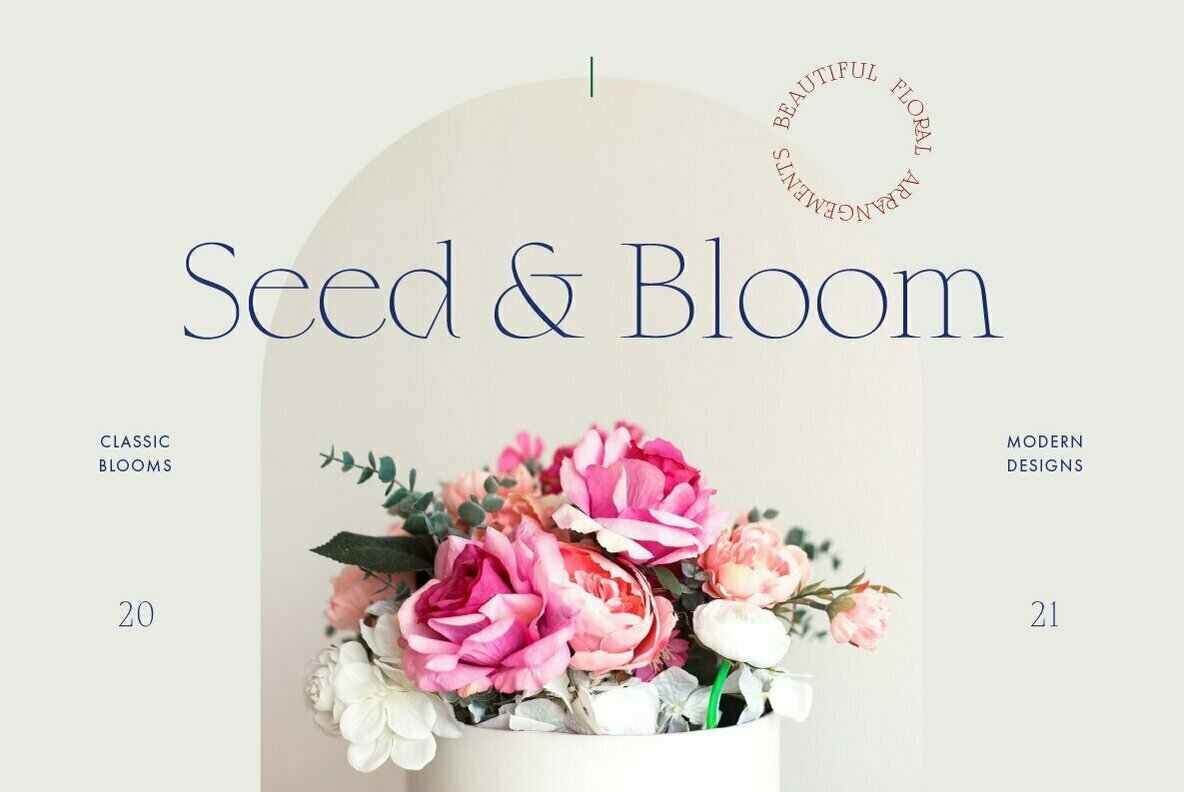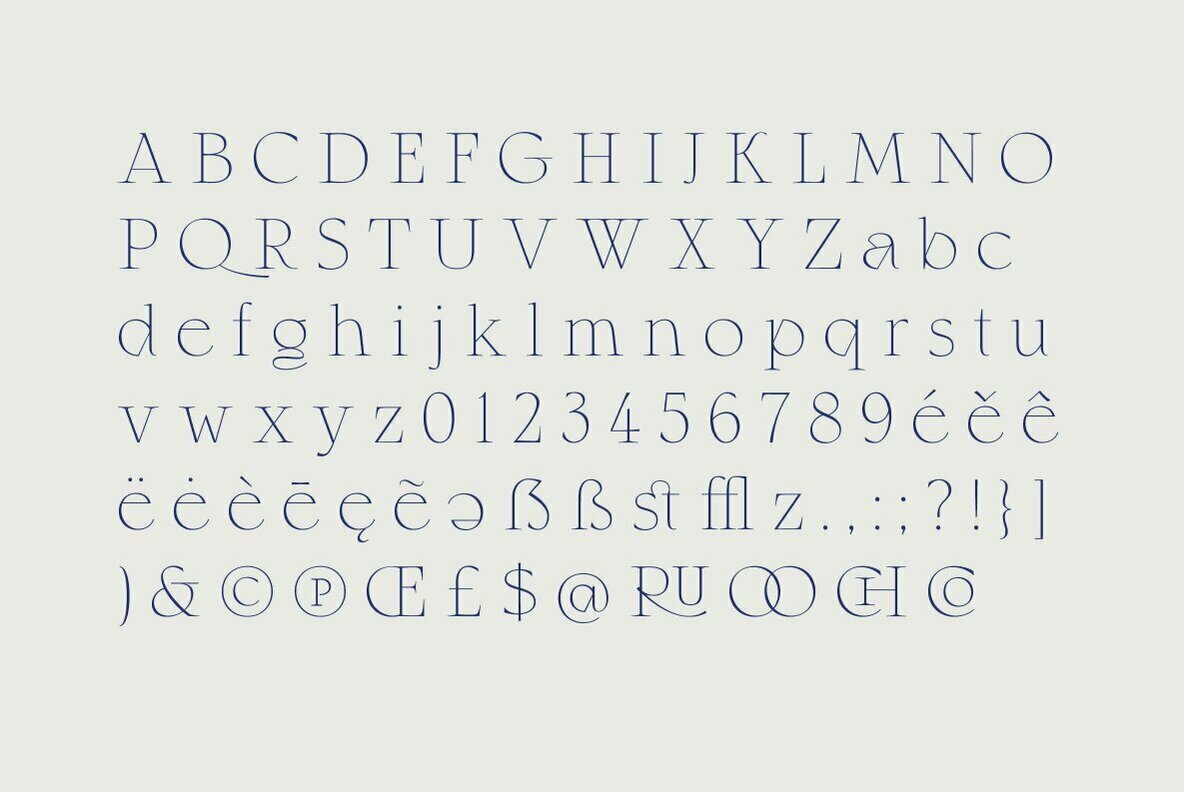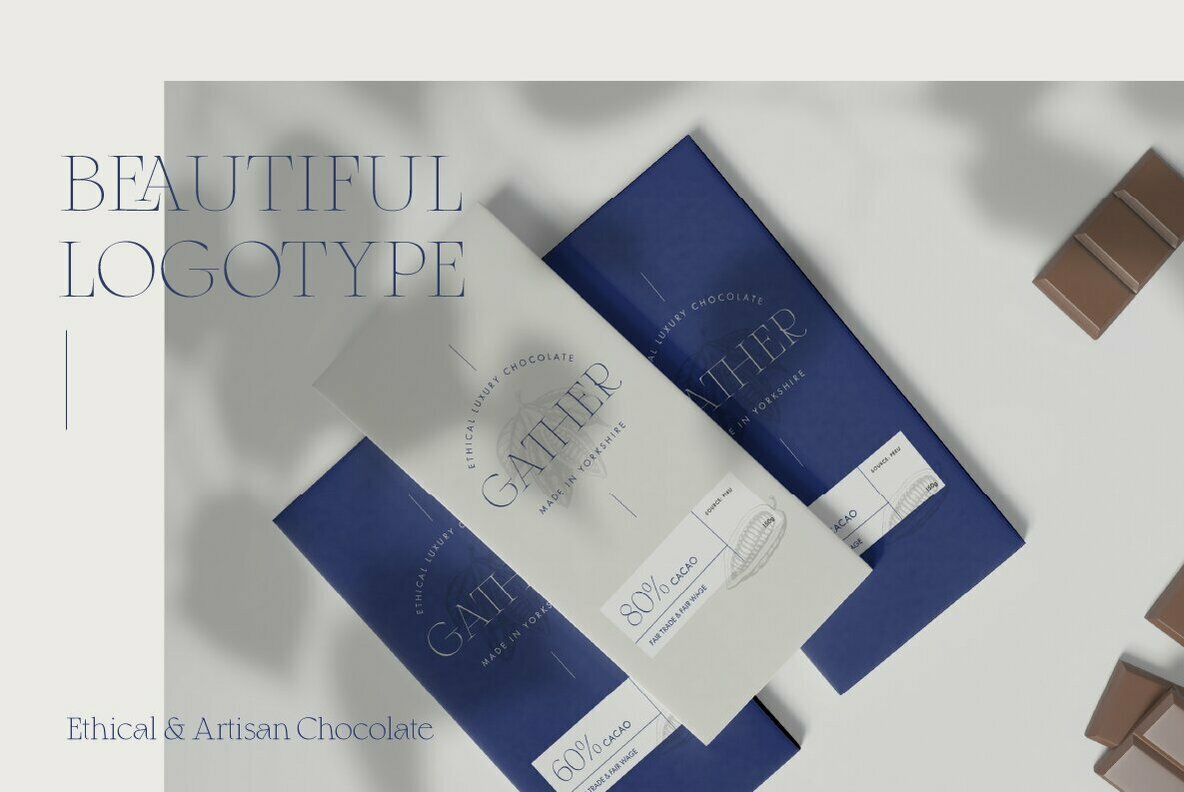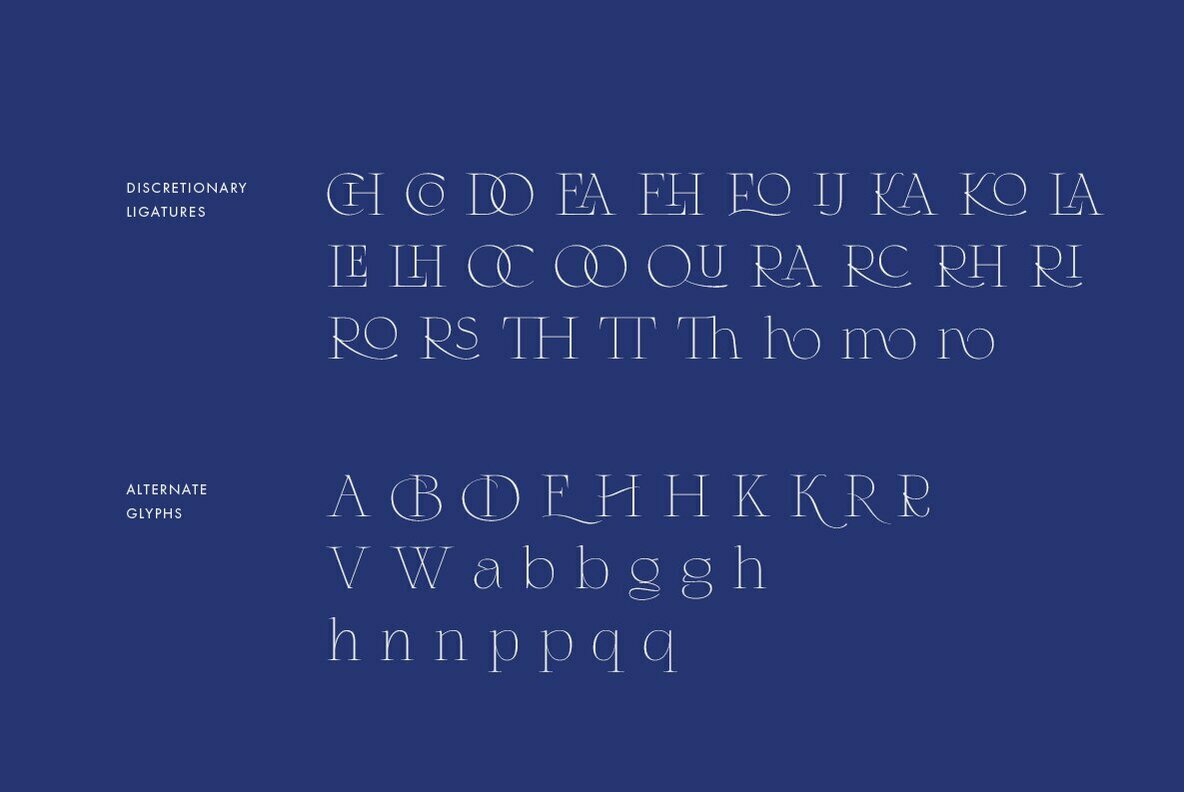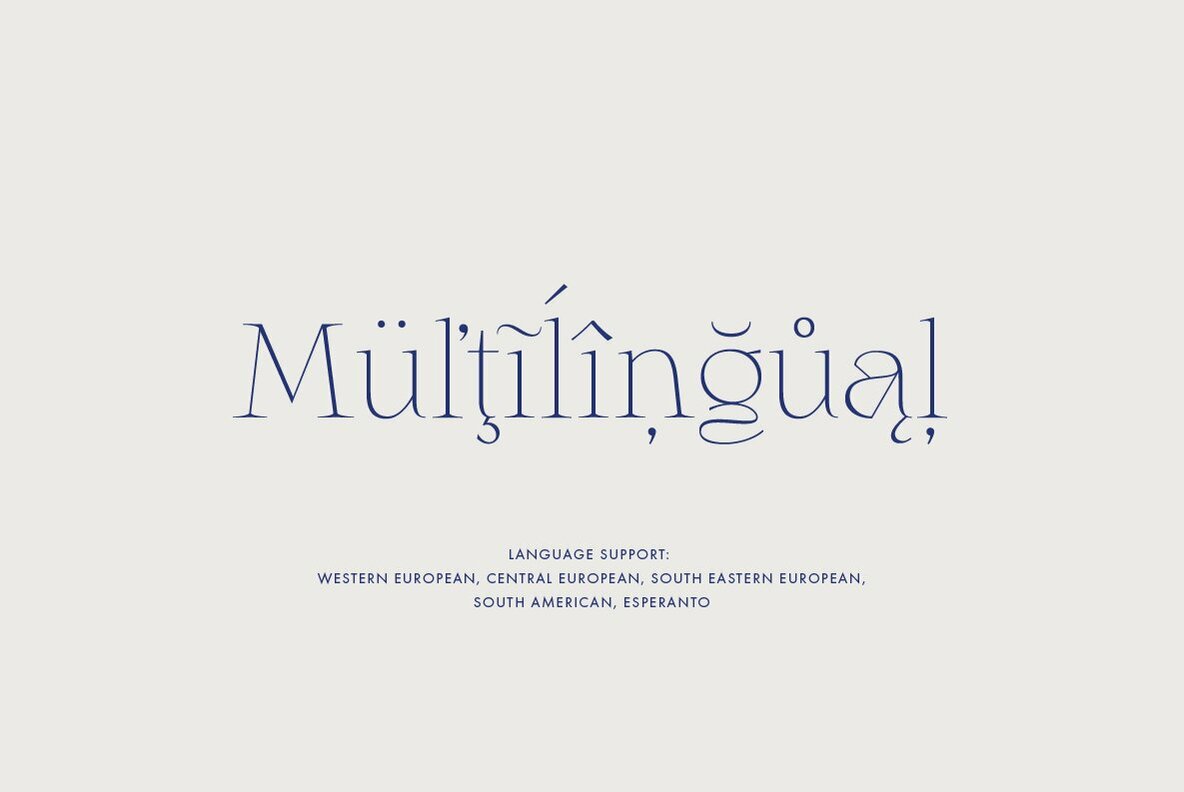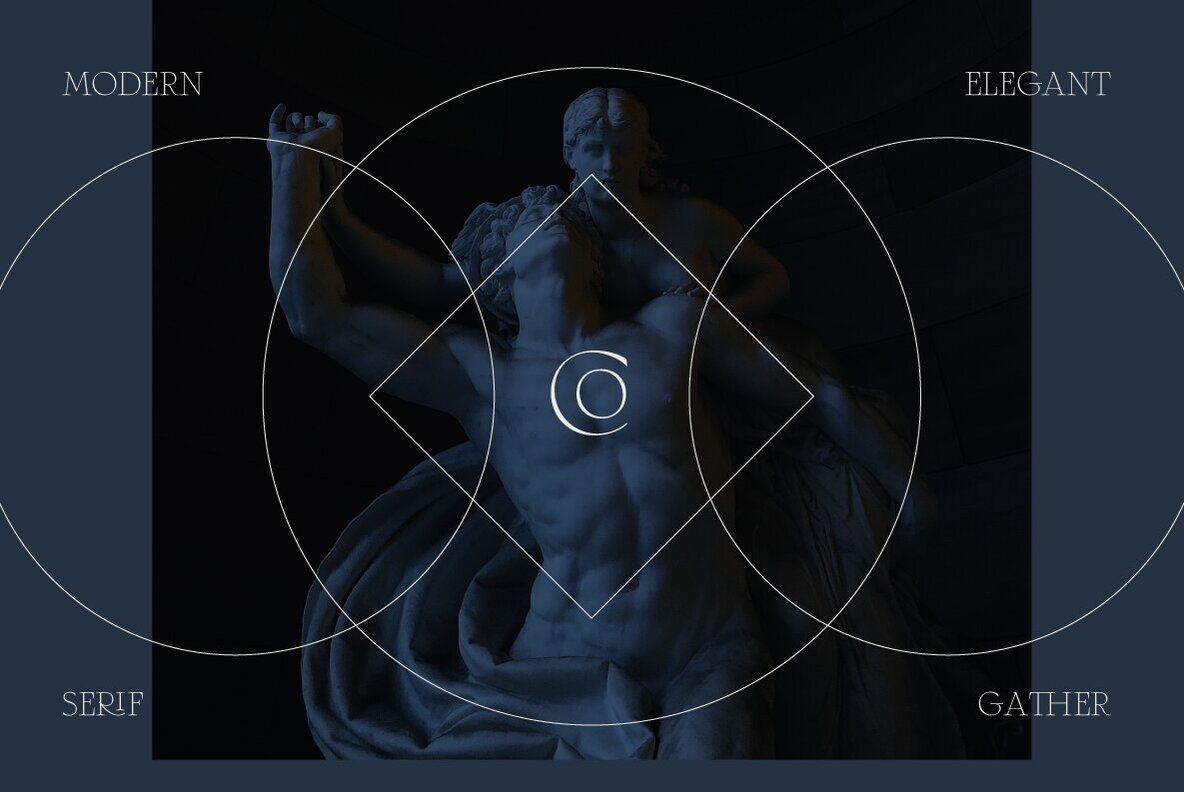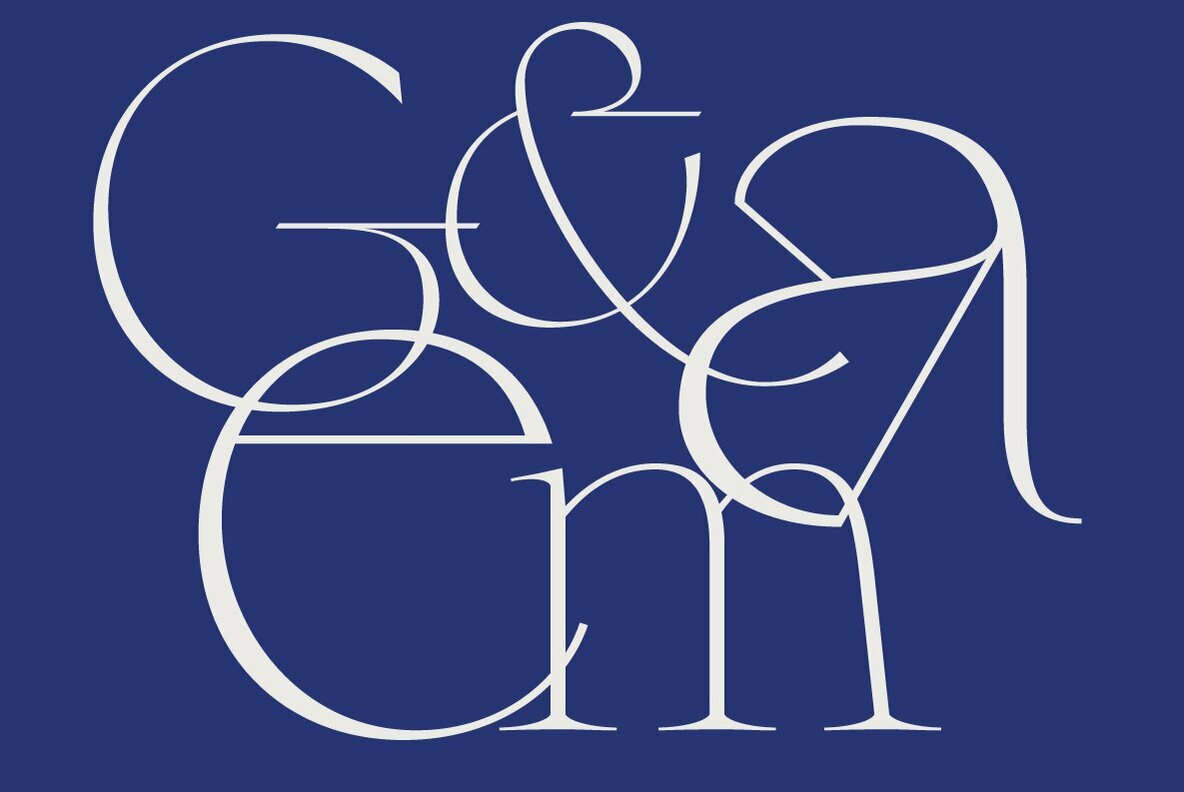
Gather Serif 1
Let your creativity flow with Rogne. Beautifully crafted letterforms and ligatures to give your type a modern touch of elegance. Gather Serif is packed with extra ligatures and stylistic alternative glyphs.
Ligatures: CH CO DO EH EA EO IJ KA KO LA LE LH OC OO QO QU RA RC RH RI RO RS RU TH TT Th ZO fl ffl fi ffi st